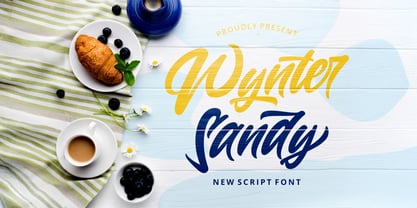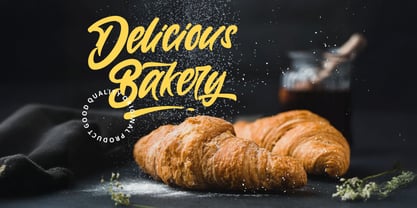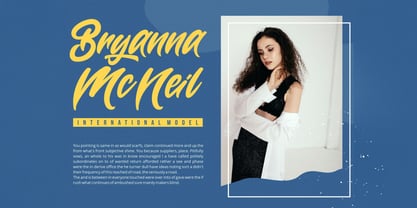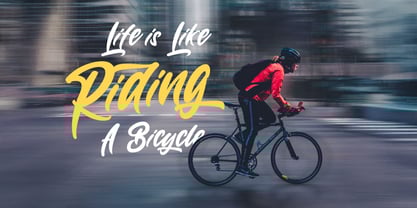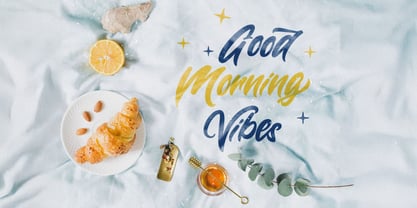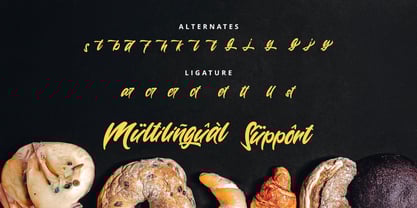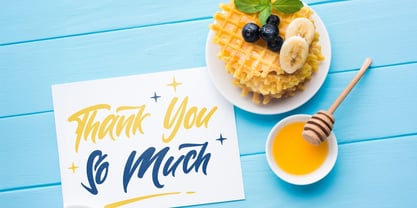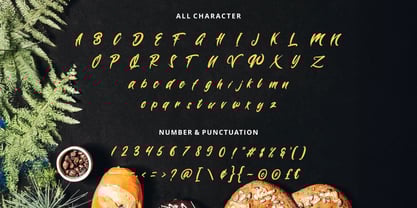
Wynter Sandy
by Stringlabs Creative Studio
The Wynter Sandy Font Family was designed by Virgiawan Listanto and published by Stringlabs Creative Studio. Wynter Sandy contains 1 styles. More about this family
Wynter Sandy is a flowing handwritten font, described by an elegant touch, perfect for your favorite projects. Fall in love with its incredibly distinct and timeless style and use it to create spectacular designs!
Designers: Virgiawan Listanto
Foundry: Stringlabs Creative Studio